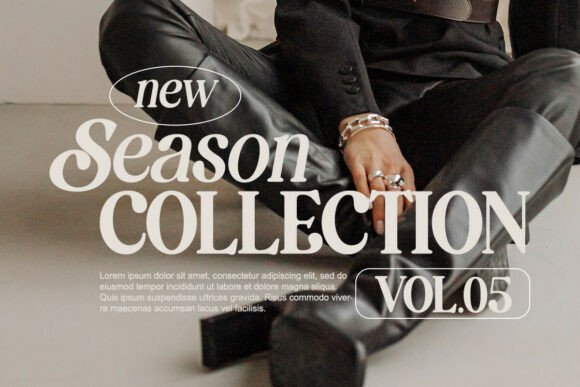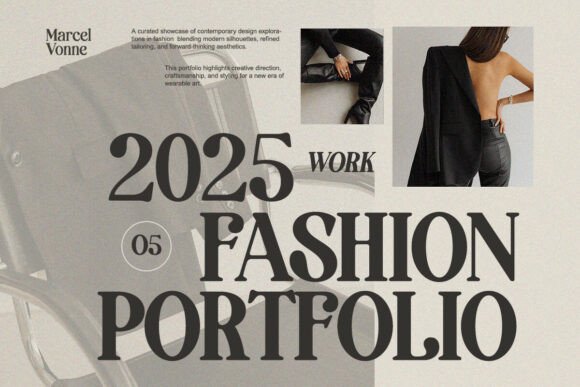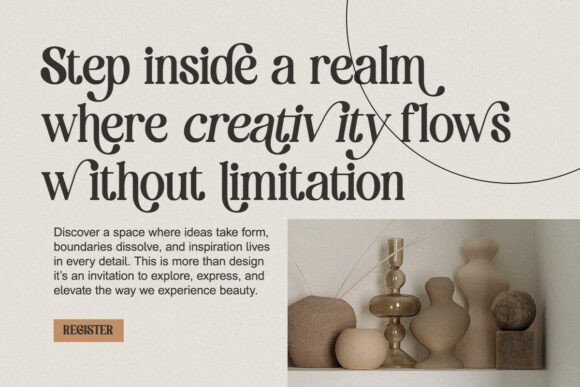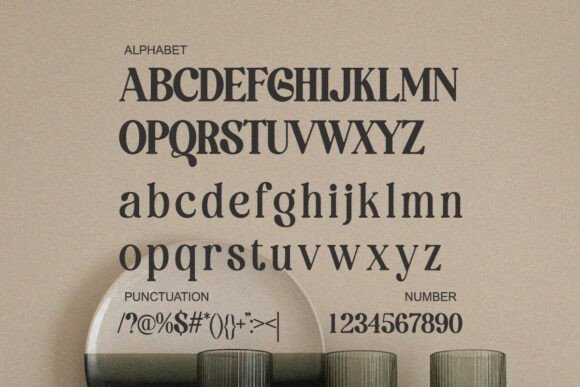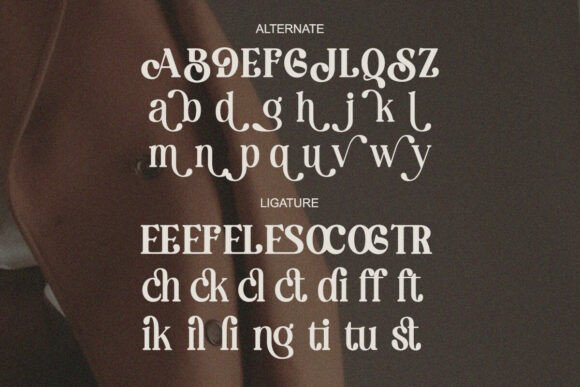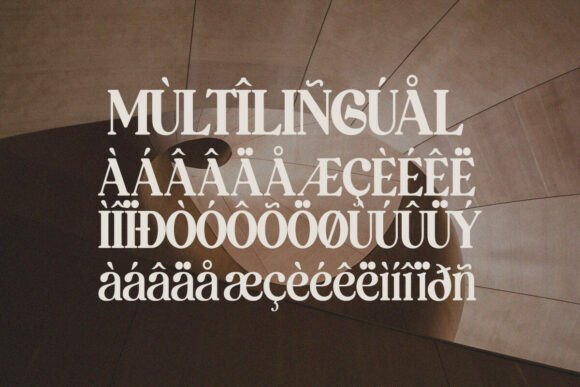
The Perfect Blend of Elegance and Sophistication
Have you ever stared at a beautifully crafted headline and felt a rush of inspiration, wondering how to create something equally stunning for your next project? For designers, the perfect font can be the difference between a decent layout and a truly iconic visual language.
Enter the Bolding Century Font, a modern elegant serif typeface designed to bring timeless luxury and sophistication to any layout. With its beautifully curved terminals and bold letterforms, this typeface is the perfect blend of vintage aesthetics and modern readability. Whether you’re working on a luxury brand identity, editorial layout, or fashion and beauty packaging, the Bolding Century Font is a must-have for elevating your visual language and making every word feel iconic.
Bolding Century Font Key Features
- Font Family: Bolding Century, a serif font designed for body text and print materials.
- Unique Characteristics: Bolding Century features a sturdy, classic design with a strong vertical axis, making it ideal for reading and printing long passages.
Bolding Century Font Review
Overall, I’d say the Bolding Century Font has its charm ✨. The bold, classic look is reminiscent of traditional typography from the 19th century, which adds a touch of elegance to any design project.
The font’s clarity and legibility are also notable strengths ✨. The bold weight is clear and easy to read, making it perfect for headings and titles. Additionally, the font’s consistency across different sizes and resolutions is impressive.
Here are some specific features that work well:
- Timeless classic look that evokes a sense of tradition
- Clear and legible bold weight
- Consistent font rendering across different sizes and resolutions
However, there are some limitations to consider ⚠️:
- The font may not be suitable for modern or minimalist designs, as it can feel too ornate or old-fashioned
- The font’s bold weight may be too heavy for certain applications, such as body text or captions
- The font may not be as versatile as some other options, as it’s primarily designed for traditional or classic designs
Overall, I’d recommend the Bolding Century Font for designers who are looking for a classic, timeless look. However, it may not be the best choice for more modern or experimental designs.
Tips for Getting the Most Out of Bolding Century Font
Use bolding to draw attention to important information. Experiment with different font sizes and combinations to achieve the desired effect. Keep in mind that bolding can be overwhelming, so use it sparingly.
Bolding Century Font is commonly used in:
1. Headings and titles
2. Emphasizing key information
3. Creating visually appealing designs
Alternatives to Bolding Century Font for Designers
Playfair Display is an elegant and luxurious serif font that is perfect for headings and titles. It has a classic and sophisticated look that is ideal for high-end branding, luxury products, and formal invitations. Compared to Bolding Century Font, Playfair Display has a more refined and ornate design, making it suitable for more formal and upscale designs.
Great Vibes is a modern and stylish script font that is perfect for creative and artistic designs. It has a unique and expressive look that is ideal for branding, packaging, and advertising. Compared to Bolding Century Font, Great Vibes has a more casual and relaxed feel, making it suitable for designs that require a friendly and approachable tone.
Pacifico is a beautiful and elegant script font that is perfect for designs that require a touch of sophistication and luxury. It has a classic and refined look that is ideal for branding, packaging, and advertising. Compared to Bolding Century Font, Pacifico has a more refined and polished design, making it suitable for high-end designs that require a touch of elegance.